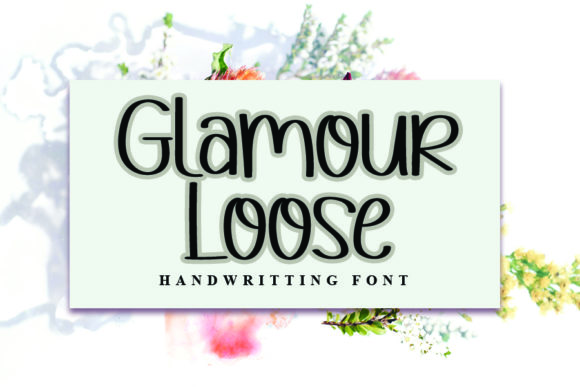
Glamour Loose Font: Elevate Your Designs with Elegance and Sophistication
In the world of typography, fonts play a crucial role in conveying the tone and personality of a design. For designers and crafters looking to add a touch of glamour and sophistication to their creative projects, the Glamour Loose Font is an excellent choice. This simple yet elegant lettered display font is designed to make your ideas stand out, and in this article, we’ll explore its features, benefits, and uses.
What is Glamour Loose Font?
Glamour Loose is a beautifully crafted display font that exudes elegance and refinement. Its simple and neat lettering style makes it perfect for a wide range of design applications, from branding and advertising to crafting and DIY projects. The font’s clean lines, subtle curves, and balanced proportions create a sense of sophistication and luxury, making it ideal for designers and crafters who want to add a touch of glamour to their work.
Key Features of Glamour Loose Font
- Simple and Neat Lettering Style: Glamour Loose features a simple and neat lettering style that is easy to read and understand.
- Elegant and Refined: The font’s elegant and refined design makes it perfect for high-end branding, advertising, and luxury crafts.
- Versatile: Glamour Loose is a versatile font that can be used for a wide range of design applications, from digital projects to print materials.
Benefits of Using Glamour Loose Font
So, why should you choose Glamour Loose Font for your design projects? Here are just a few benefits of using this beautiful font:
- Adds Elegance and Sophistication: Glamour Loose adds a touch of elegance and sophistication to your designs, making them stand out from the crowd.
- Improves Readability: The font’s simple and neat lettering style makes it easy to read and understand, even at small sizes.
- Increases Versatility: Glamour Loose can be used for a wide range of design applications, from digital projects to print materials.
- Enhances Creativity: The font’s elegant and refined design inspires creativity and imagination, making it perfect for designers and crafters who want to push the boundaries of their work.
Uses of Glamour Loose Font
Glamour Loose Font is a versatile font that can be used for a wide range of design applications, including:
- Branding and Advertising: Use Glamour Loose to create elegant and sophisticated brand identities, logos, and advertising materials.
- Crafting and DIY Projects: Add a touch of glamour to your crafting and DIY projects, such as handmade cards, gift tags, and scrapbooking pages.
- Digital Projects: Use Glamour Loose for digital projects, such as website headers, social media graphics, and email newsletters.
- Print Materials: Use Glamour Loose for print materials, such as brochures, flyers, and business cards.
In conclusion, Glamour Loose Font is a beautiful and elegant lettered display font that is perfect for designers and crafters who want to add a touch of sophistication and glamour to their creative projects. Its simple and neat lettering style, versatility, and ease of use make it an excellent choice for a wide range of design applications. Whether you’re working on a branding project, crafting a handmade card, or designing a digital graphic, Glamour Loose Font is sure to elevate your design and make it stand out.